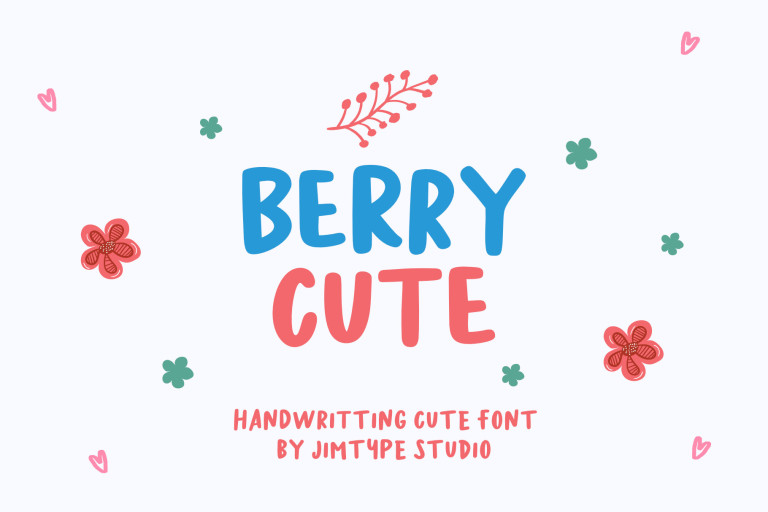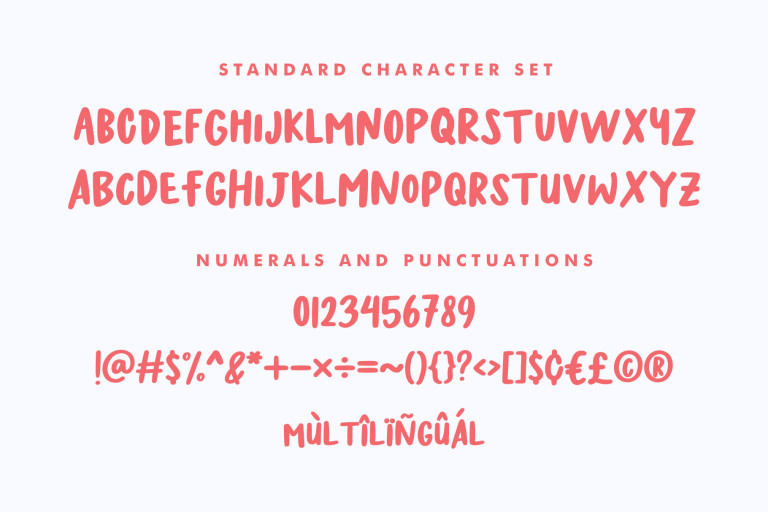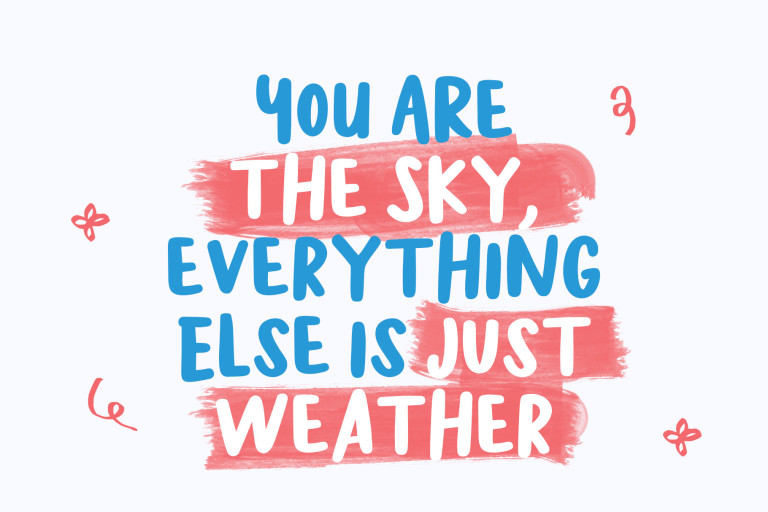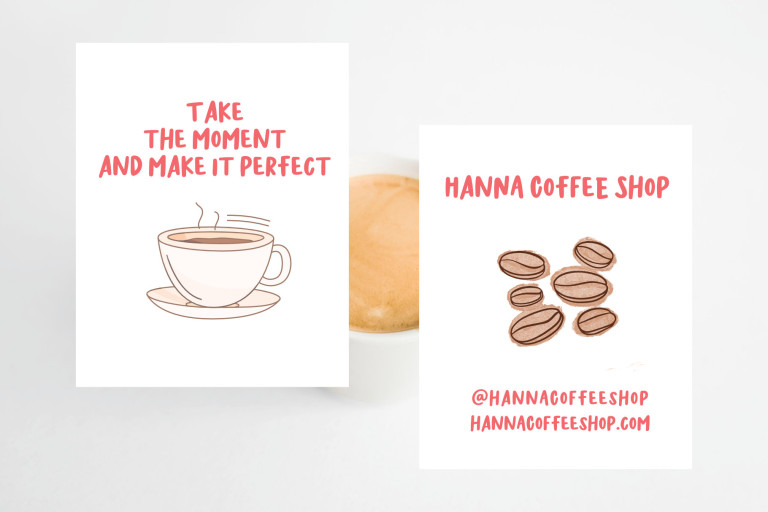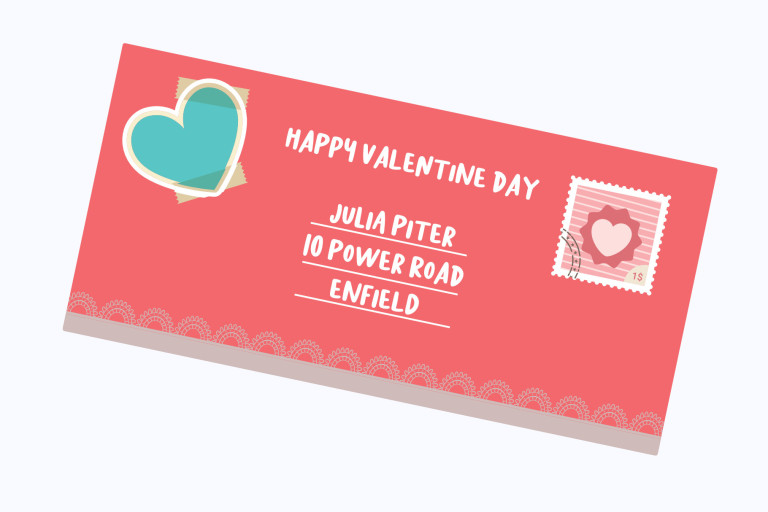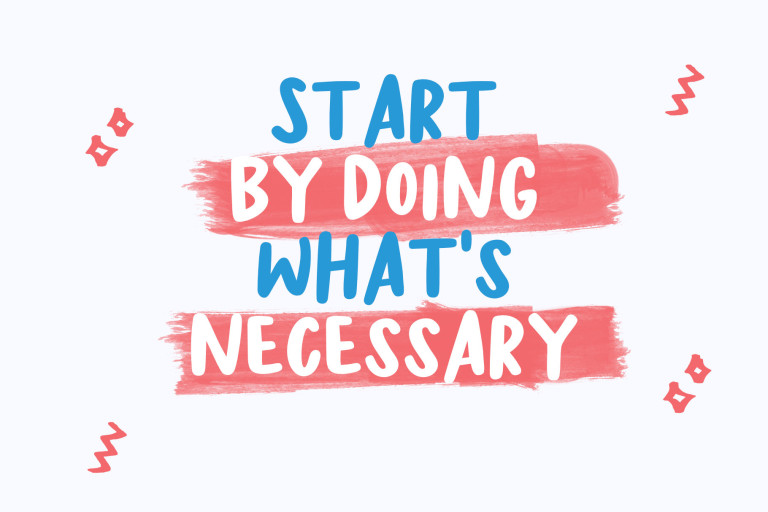
Berry Cute - Handwriting Branding Font from Jimtype Studio
Berry Cute Font
Berry Cute – Handwriting Branding Font from Jimtype Studio
Say hello to our new font “Berry Cute”—a handwritten font that’s perfect for your designs.
A charming, messy handwritten font that adds a natural touch to your designs, yet still feels sophisticated.
Perfect for branding, packaging, quotes, invitations, logos, websites, social media, headers, posters, and many other ways to create artwork with this font.